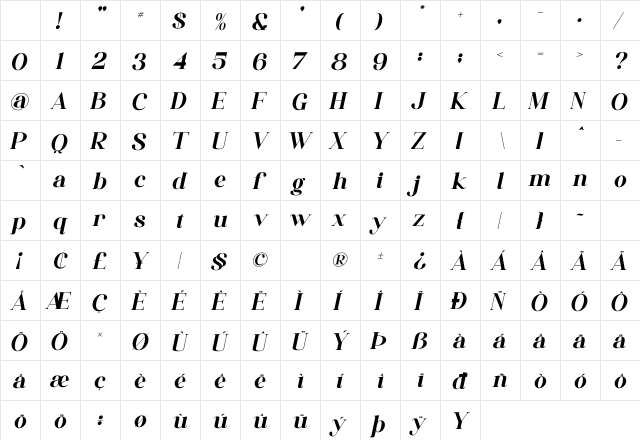
Complete Jackal Holiday Italic glyph index. Displaying only characters natively supported by Jackal Holiday Italic font.
Jackal Holiday is a composed and adaptable typeface that performs quietly and consistently across a wide range of design contexts. The slanted form adds forward momentum and visual energy.